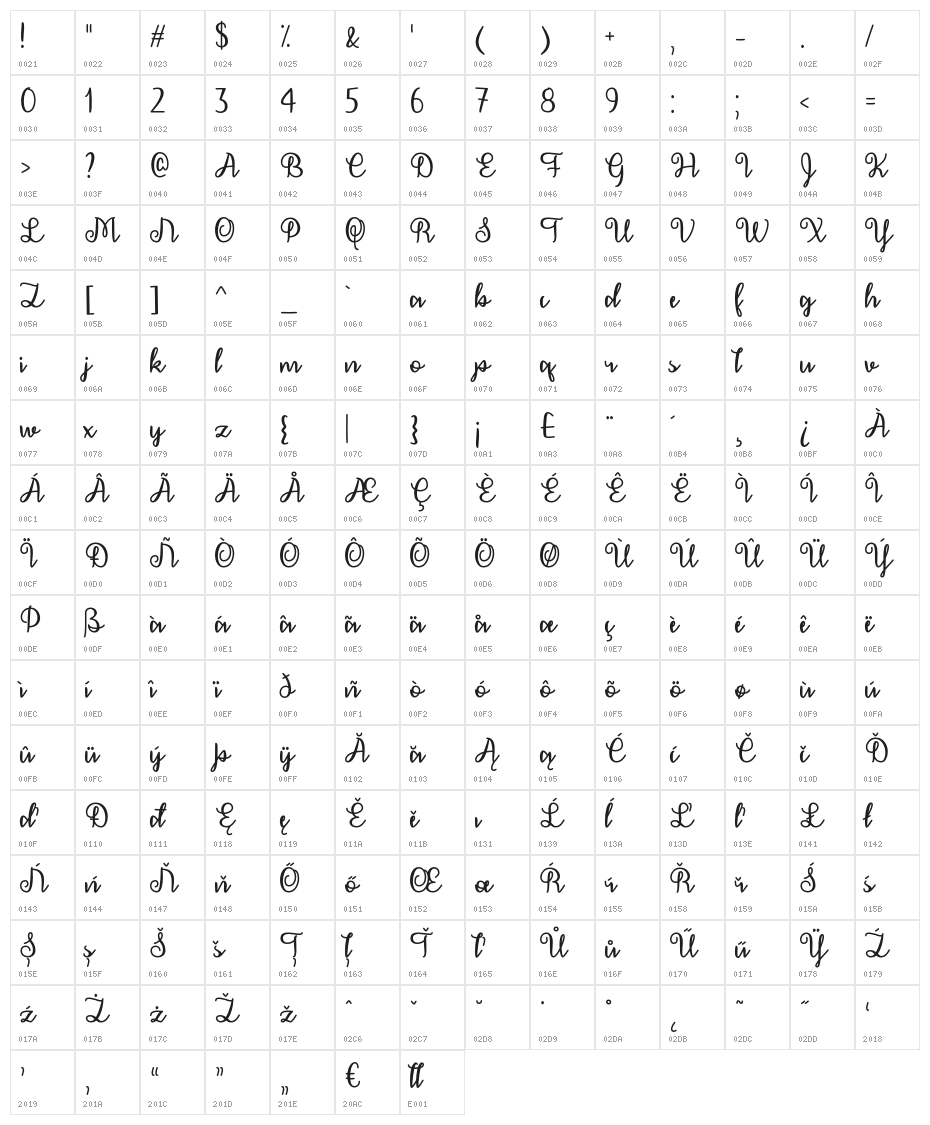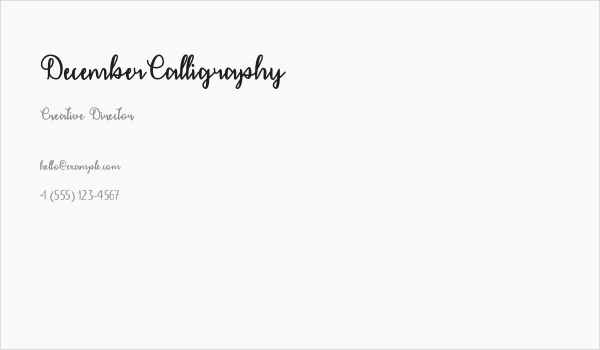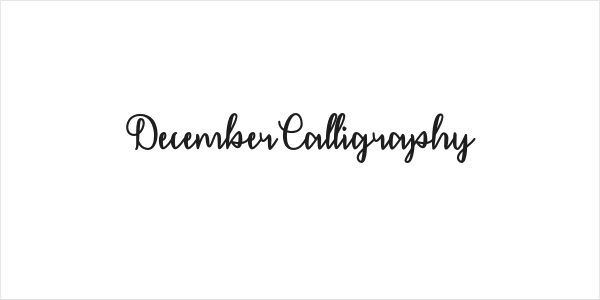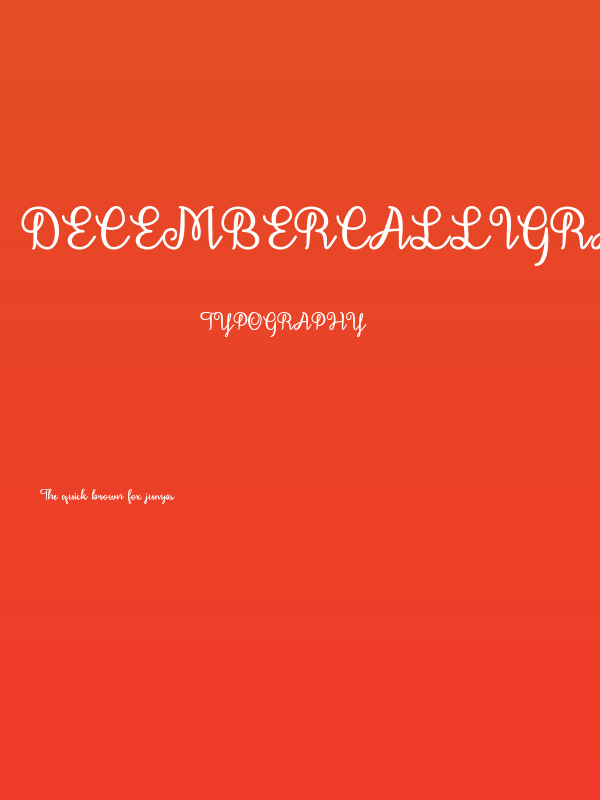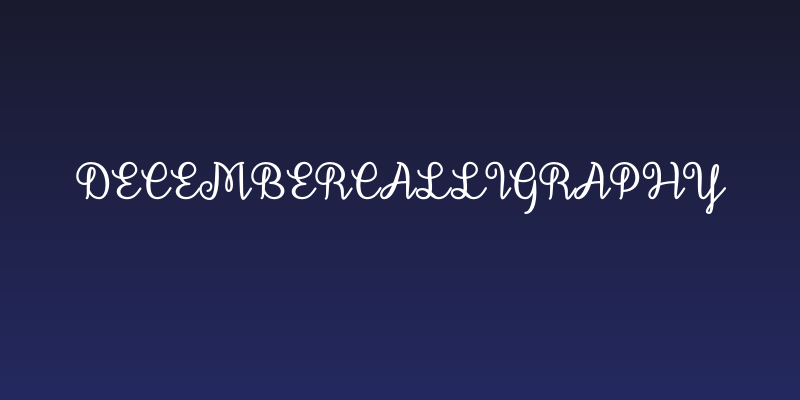
DecemberCalligraphy Font
✎ Calligraphic
DecemberCalligraphy Description
This font exudes a charming and elegant calligraphic style, characterized by its flowing and interconnected letterforms. The uppercase letters are gracefully looped, while the lowercase letters maintain a smooth, cursive appearance. The numerals are consistent with the overall style, offering a harmonious blend of curves and lines. Special characters are thoughtfully designed to complement the alphabet, enhancing the font's versatility. The font's aesthetic is both sophisticated and approachable, making it suitable for a variety of creative projects.
| Categories | Calligraphic |
| Overall Style | Elegant |
| Use Case | Logos, Invitations, Decorative text |
| Proposed Projects | Ideal for wedding invitations, greeting cards, branding, and elegant stationery. |